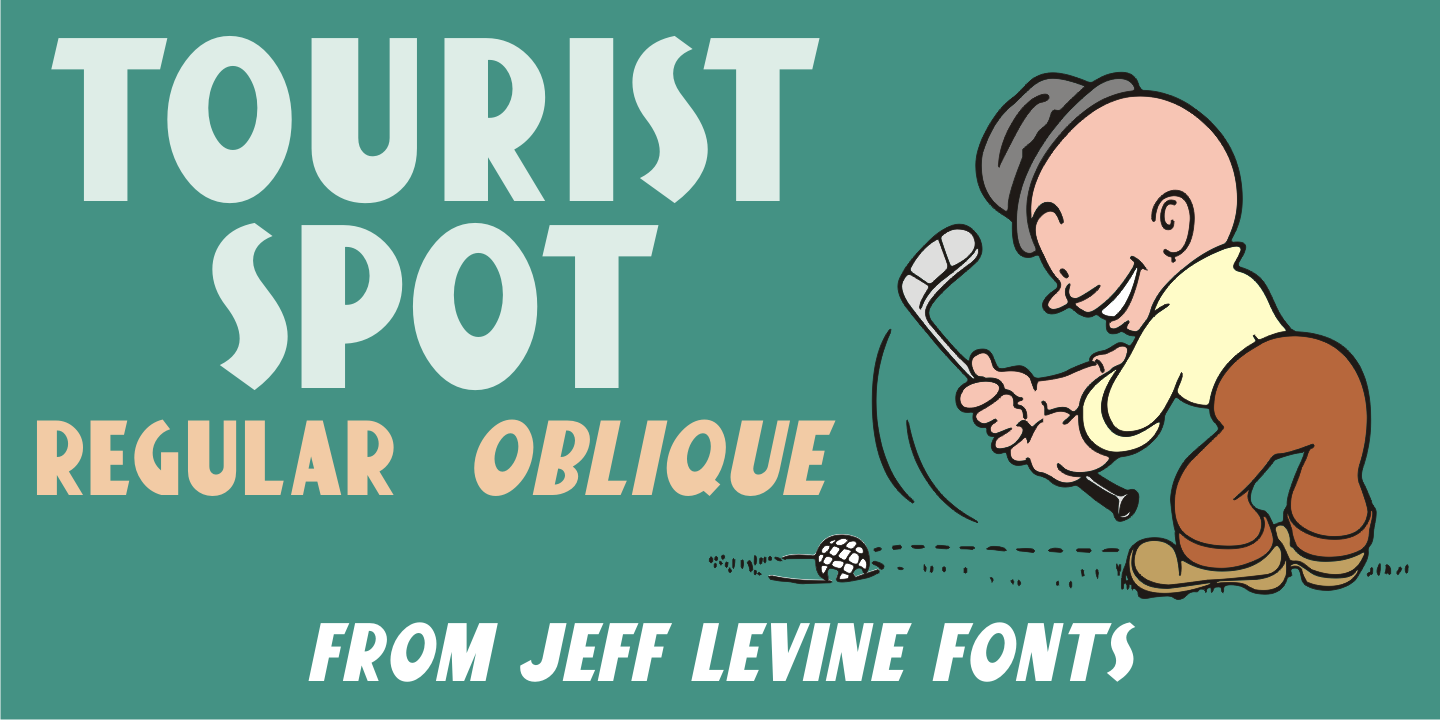
The Tourist Spot JNL Font Free Download is perfect for festive posters, travel brochures, retro signage, and party invitations, evoking a playful, vintage vibe.
This font is exciting because its casual, hand-lettered style, inspired by 1930s sheet music, adds a lively, nostalgic charm to any design.
The Tourist Spot JNL family includes Regular and Oblique styles, offering flexibility for creative projects.
Capture the spirit of adventure with the Tourist Spot JNL Font Free Download, a typeface designed by Jeff Levine, inspired by the 1939 sheet music for “Class Will Tell.” This sans-serif font, stripped of the squiggly lines found in its counterpart Old Tijuana JNL, delivers a clean, retro aesthetic perfect for festive and travel-themed designs. Ideal for bold headlines or quirky logos, Tourist Spot JNL brings a carefree, vintage energy to posters, menus, or digital graphics. Its crisp rendering ensures readability across print and web platforms. As 2025 design trends favor nostalgic, playful typography, downloading Tourist Spot JNL Font Free Download keeps your work vibrant and engaging. Test it today to explore its festive potential, and consider purchasing for commercial use to fully leverage its unique style.